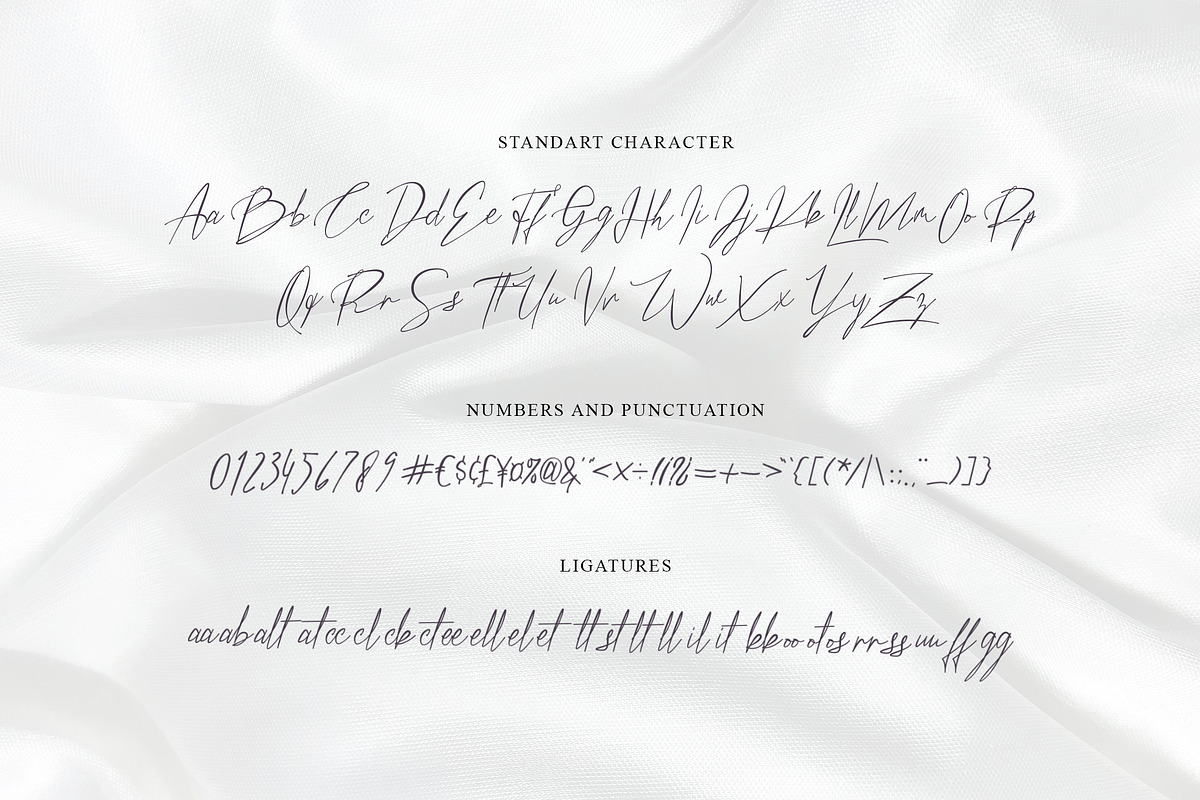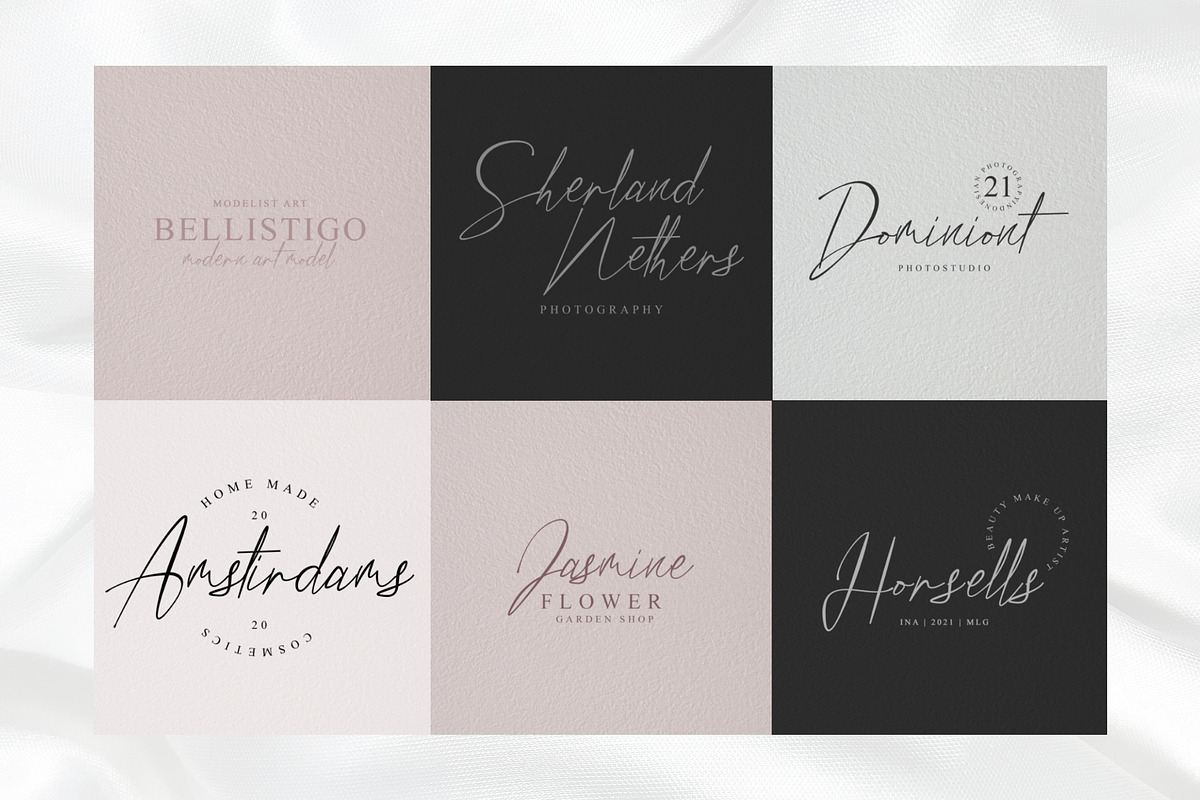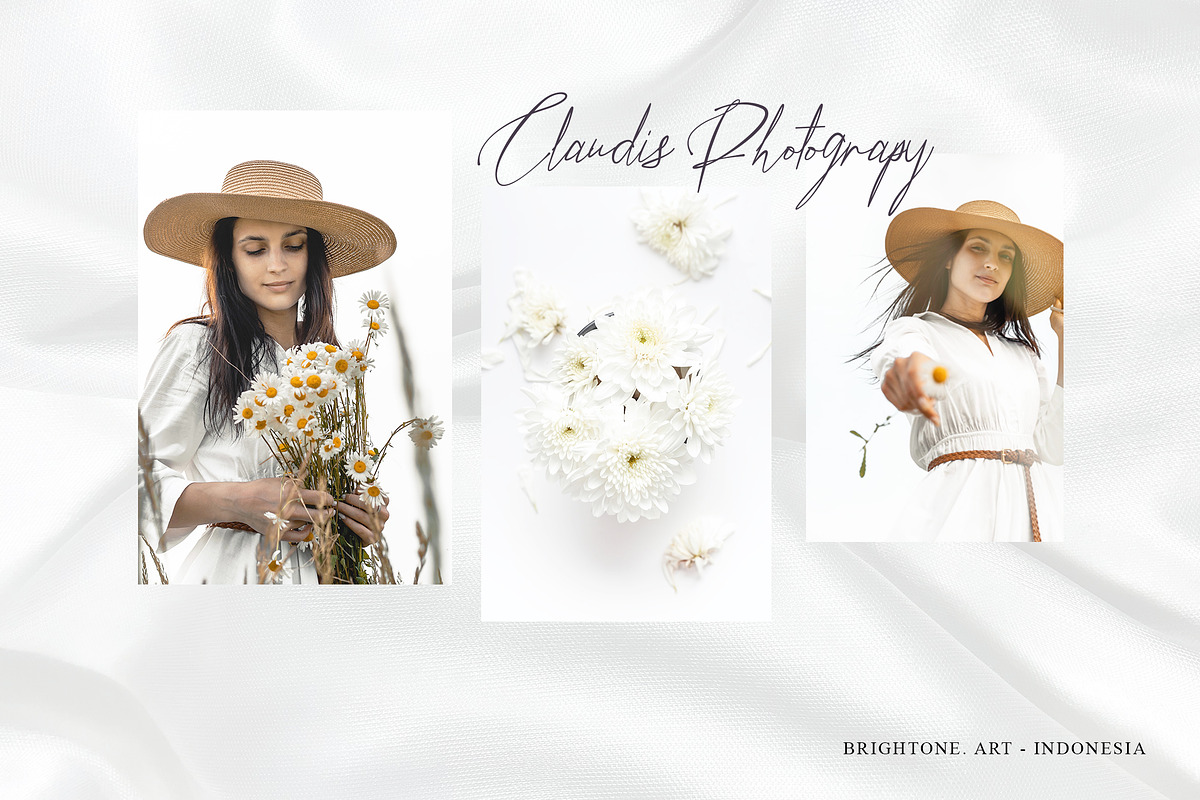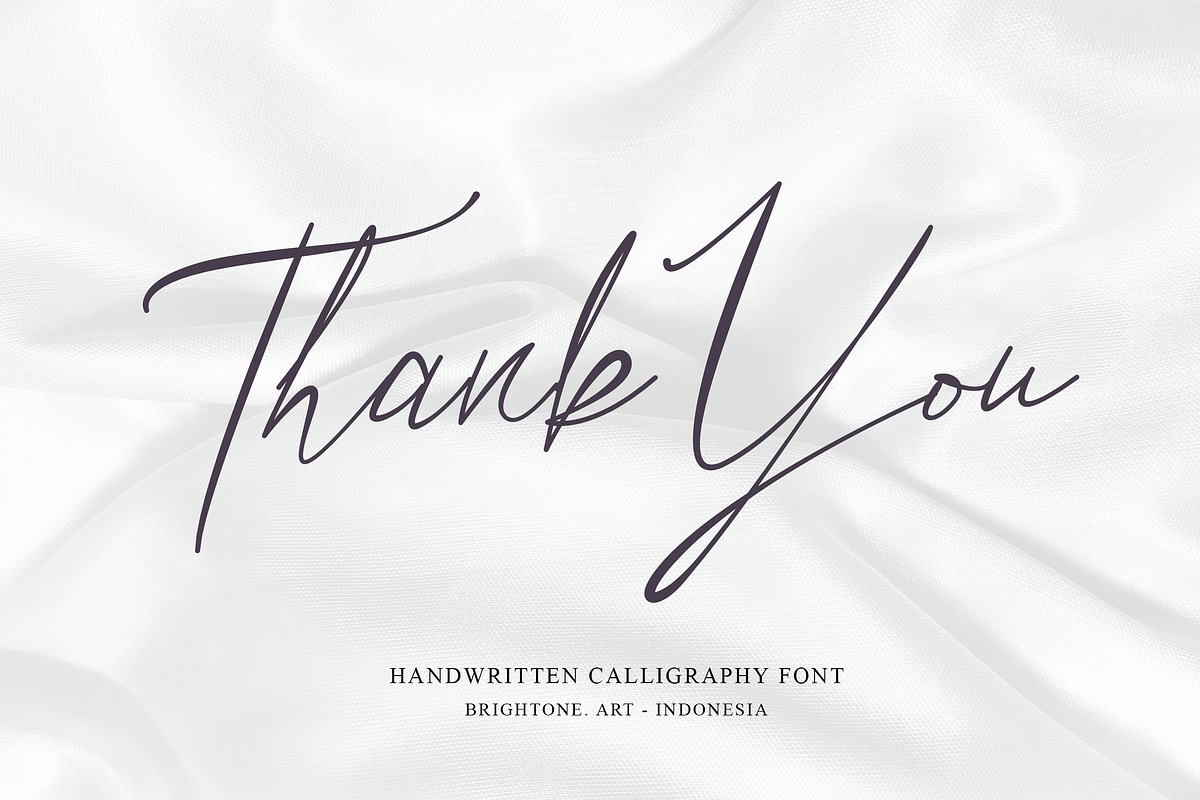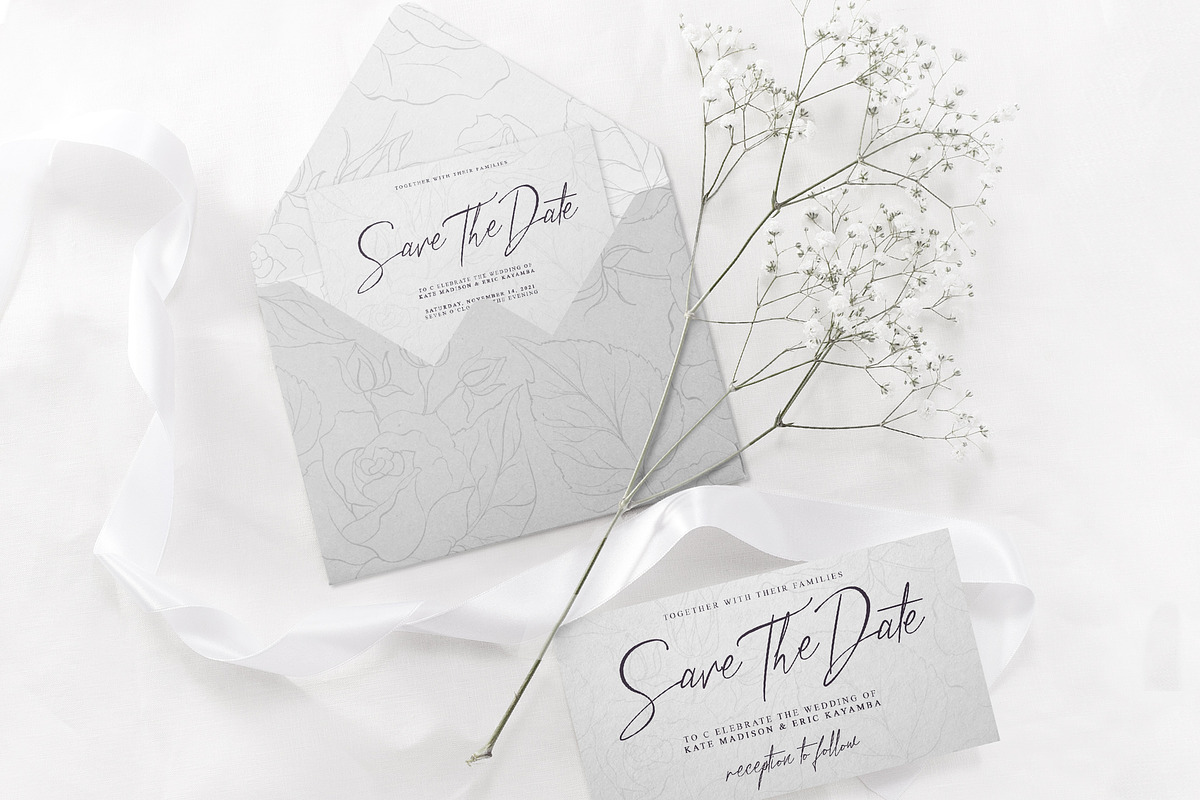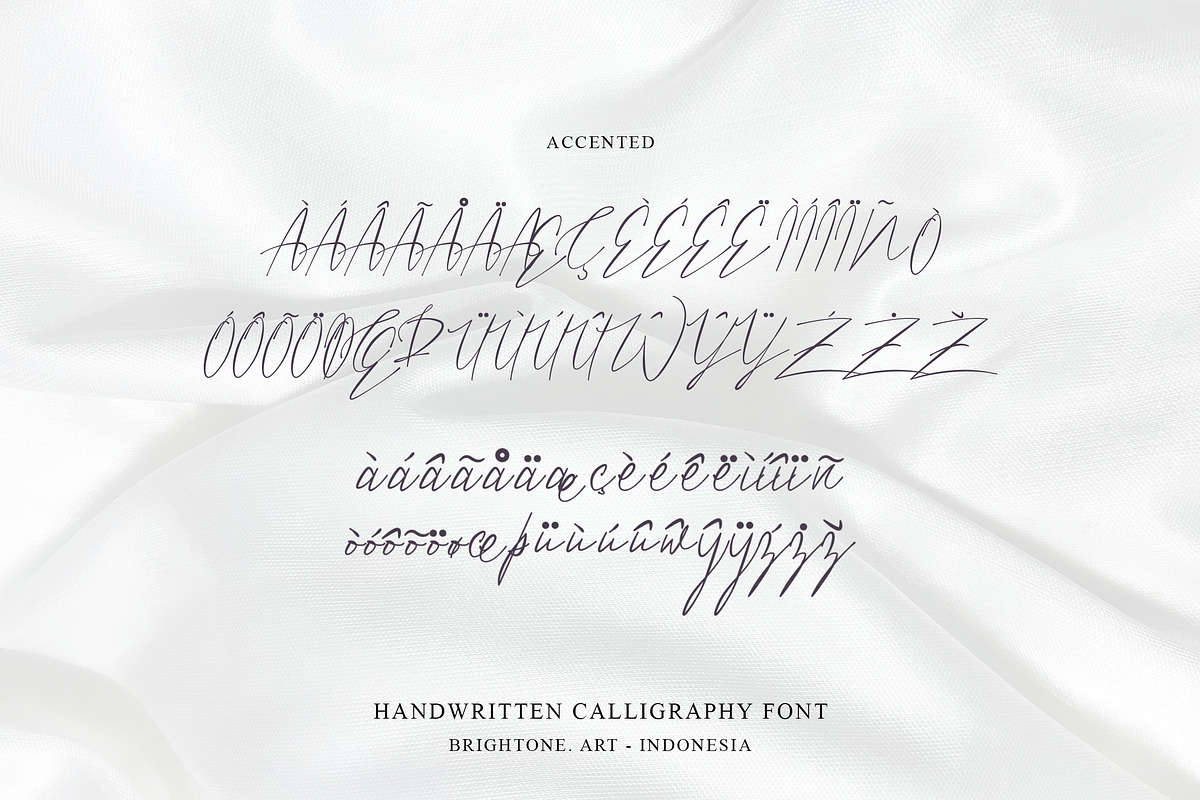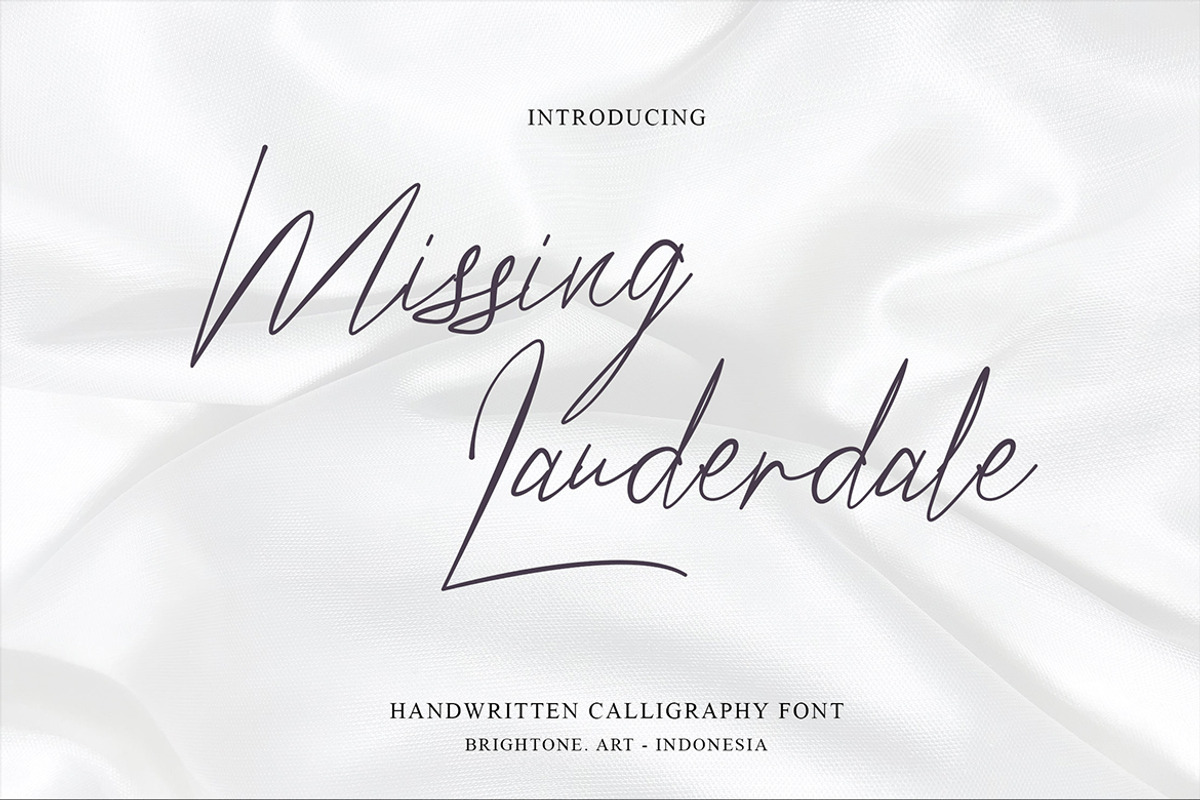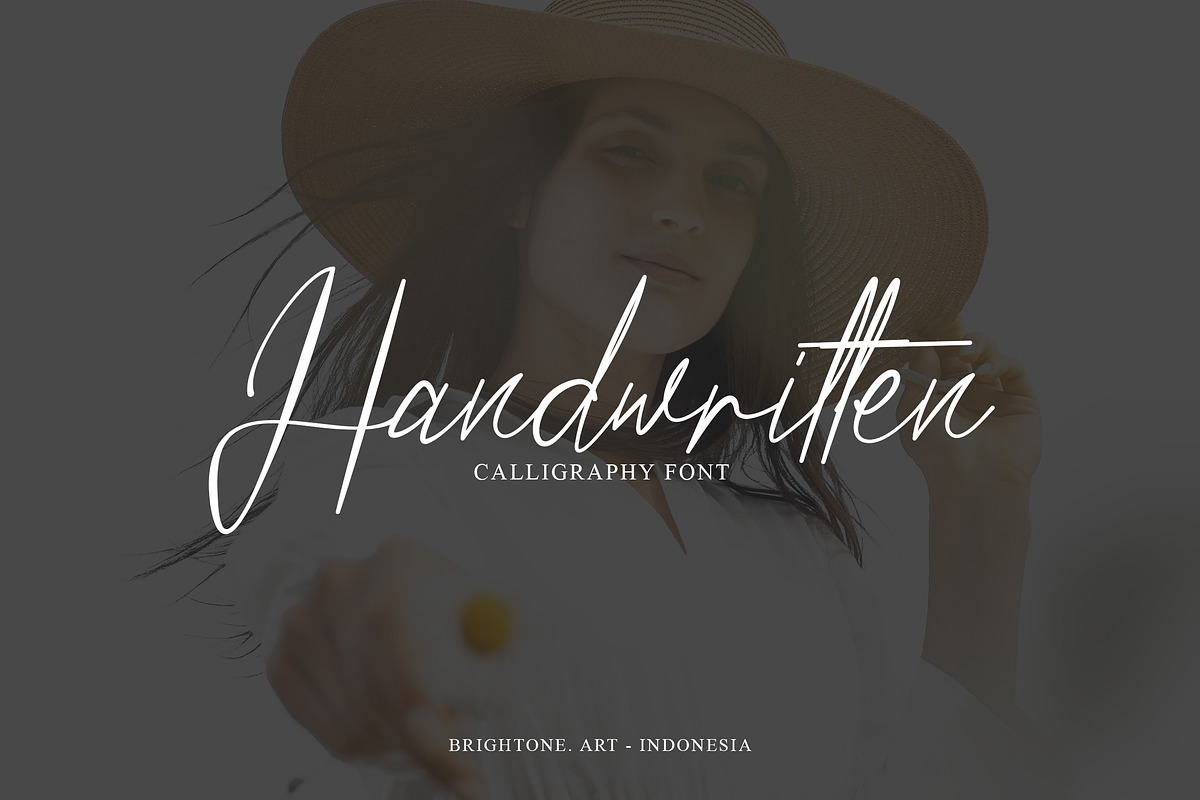
Missing Lauderdale - Handwritten
MISSING LAUDERDALE is script handwritten font with good style and classy touch, these font includes:
- Uppercase and Lowercase characters.
- Numbers and Punctuation.
- Ligatures.
- Multilingual Support (Eastern, Central and Western European countries).
MISSING LAUDERDALE font is suitable to use for all purpose for your logo lettering, logo, label, packaging, sticker, branding and many more.